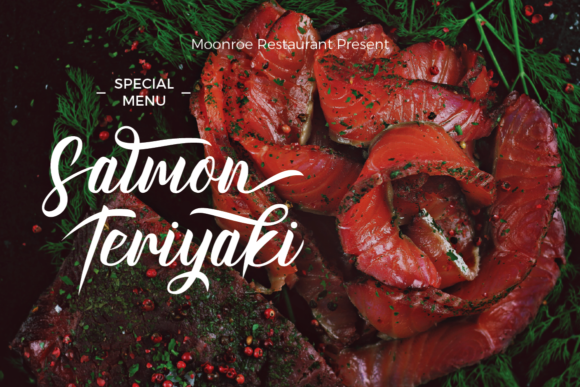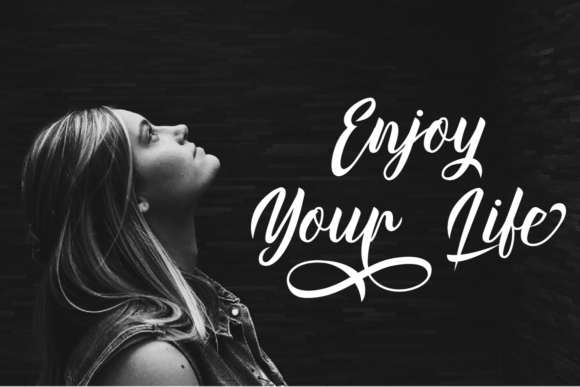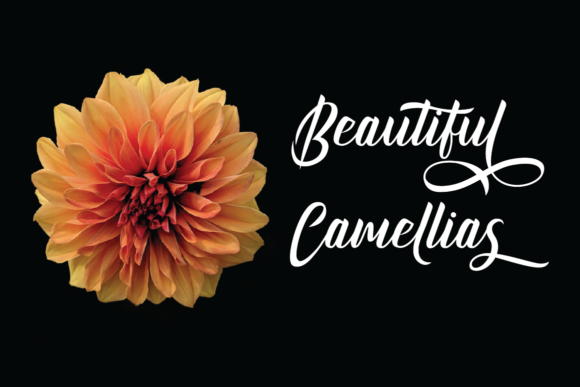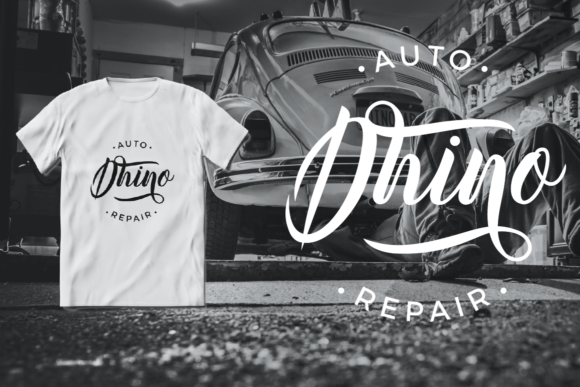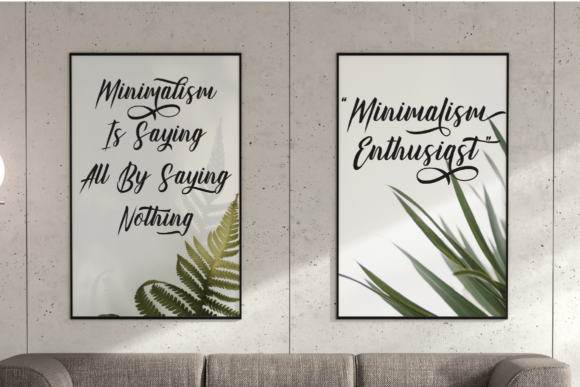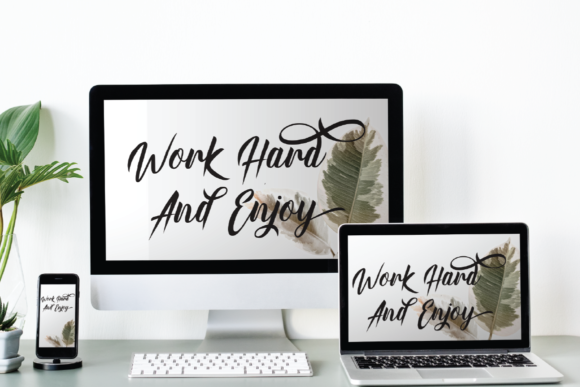
Introduction to Kinghawk Font
Have you ever stared at a blank page, waiting for inspiration to strike, only to find yourself doodling in the margins with a pen? That’s where the magic happens, and that’s where the Kinghawk Font comes in. This elegant and flowing handwritten font is the perfect companion for your creative projects, infusing them with a touch of classic sophistication and modern flair.
With its PUA encoding, you’ll have access to all the glyphs and swashes at your fingertips, allowing you to create high-quality designs that truly shine. Whether you’re working on a branding project, a wedding invitation, or a social media campaign, the Kinghawk Font is an invaluable design resource that will take your work to the next level. And the best part? It’s a free download, so you can start exploring its endless possibilities right away.
- High-quality design resource with a unique and creative style, perfect for various projects.
- Unique and bold character set, making it ideal for headings, titles, and other attention-grabbing design elements.
Honest Review: Kinghawk Font
As a designer, I’m always on the lookout for high-quality design resources that can elevate my creative projects. Recently, I stumbled upon the Kinghawk Font, and I must say it’s been a pleasant surprise. The font’s clean and modern design makes it perfect for a wide range of applications, from digital to print media.
What works well with the Kinghawk Font is its versatility. It’s available for free download, which is a huge plus for designers working on tight budgets. The font also features a transparent background, making it easy to combine with other design elements. Additionally, its high quality ensures that it scales well across different resolutions and screen sizes.
- ✨ Clean and modern design
- ✨ Versatile and suitable for various applications
- ✨ High quality and scalable
While the Kinghawk Font is an excellent addition to any designer’s toolkit, there are some limitations to consider. The font’s range of weights and styles is relatively limited, which may not be suitable for projects requiring a wide range of typography options. Additionally, the font’s customization options are somewhat limited.
Overall, I’m impressed with the Kinghawk Font, and I’d definitely recommend it to fellow designers. Its high quality, versatility, and free availability make it a valuable design resource. However, designers should be aware of its limitations before deciding to use it for their projects.
Using Kinghawk Font in Creative Projects
The Kinghawk Font is perfect for creative projects that require a unique and stylish look. You can use it in logos, posters, flyers, and other visual materials.
Tips for Getting the Most Out of Kinghawk Font
To get the most out of the Kinghawk Font, use it in combination with other design elements such as images and graphics. You can also experiment with different font sizes and styles to create a unique look.
The Kinghawk Font is commonly used in logos, business cards, and other marketing materials. It is also used in creative projects such as posters, flyers, and social media graphics.